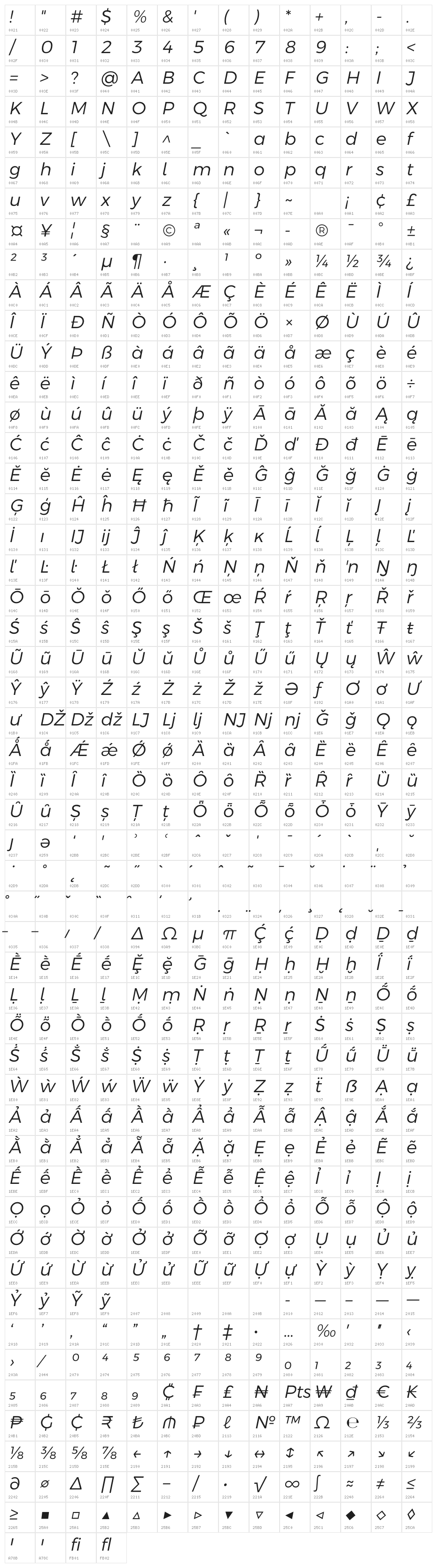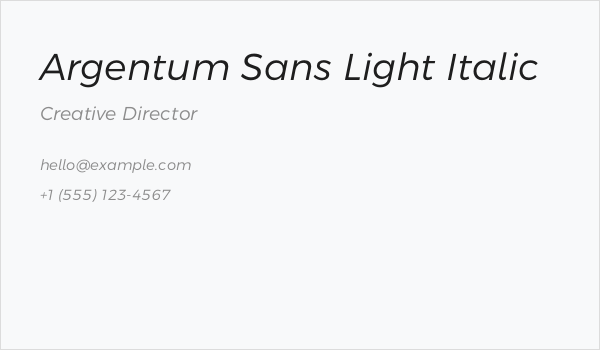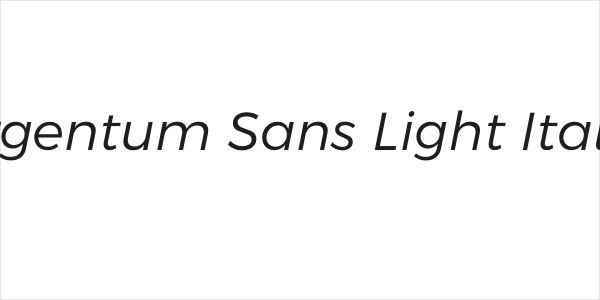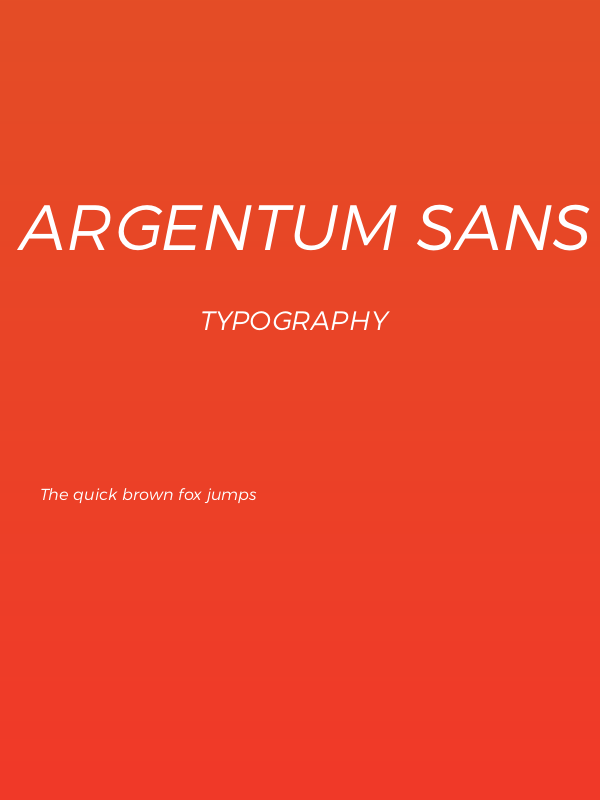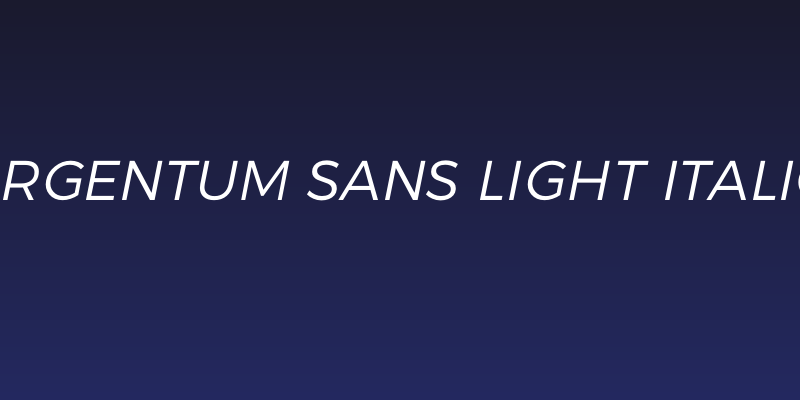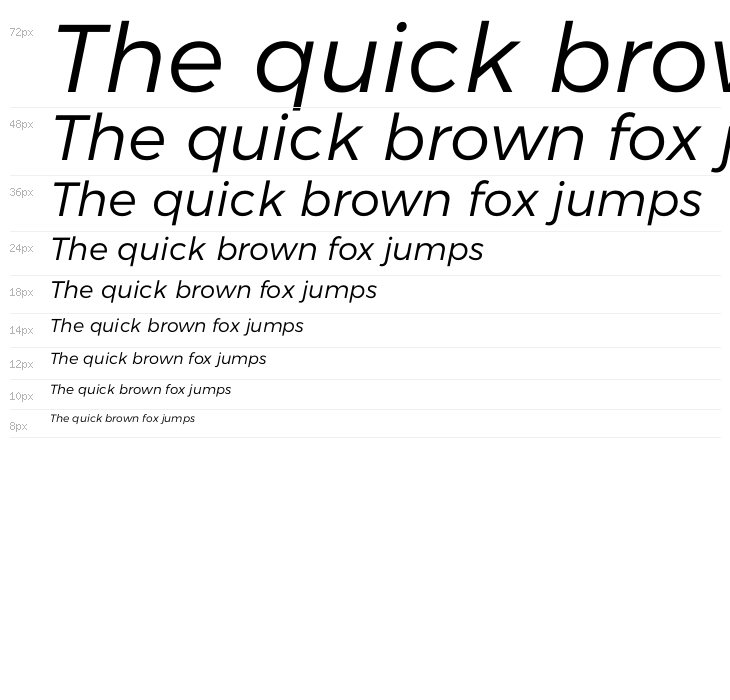
Argentum Sans Light Italic Font
Argentum Sans Light Italic Description
This font presents a sleek and modern sans-serif style with a light weight and italicized form. The characters are clean and streamlined, offering a contemporary aesthetic that is both professional and approachable. The strokes are consistent in thickness, contributing to a low contrast appearance. The overall design is minimalistic, making it versatile for various applications. The character spacing is normal, ensuring readability while maintaining an elegant flow. The font's italic nature adds a subtle dynamic quality, enhancing its visual appeal without compromising clarity.
| Proposed Projects | Ideal for modern branding, digital interfaces, and editorial design where a sleek and professional look is desired. |